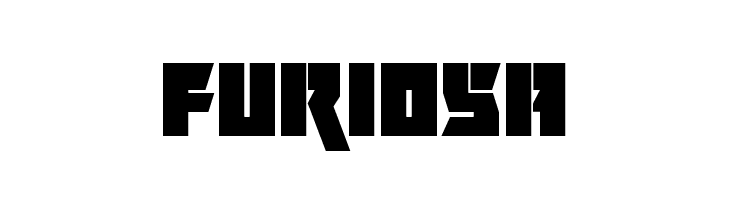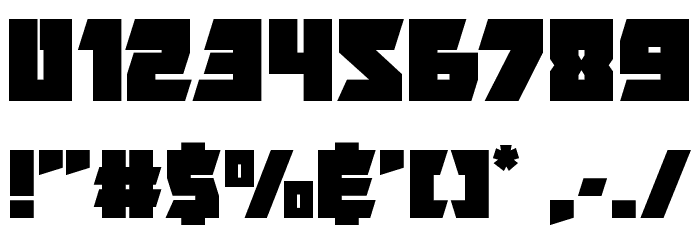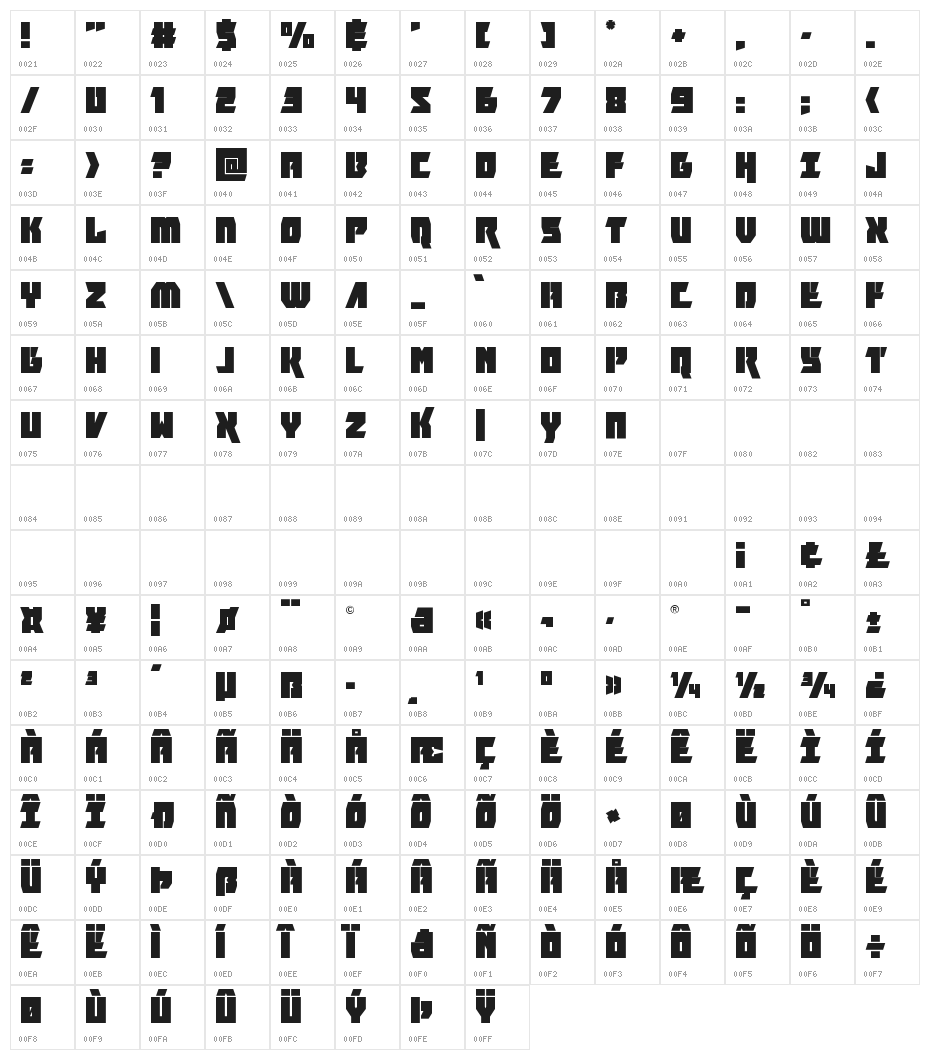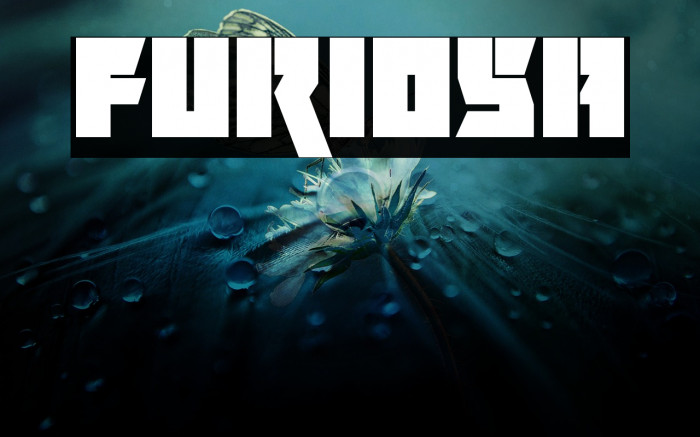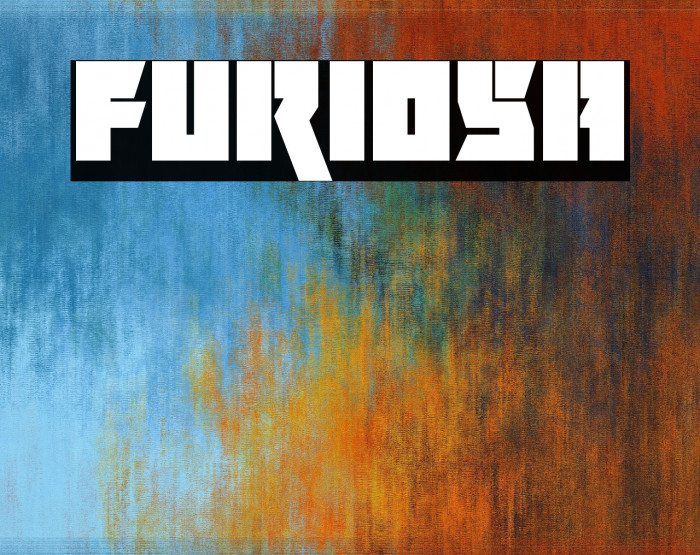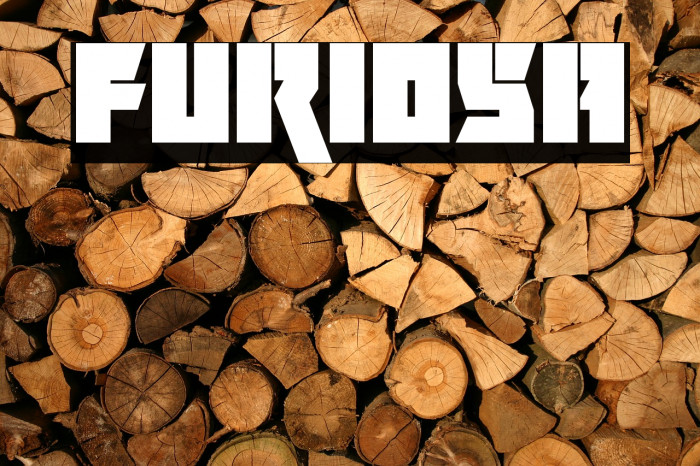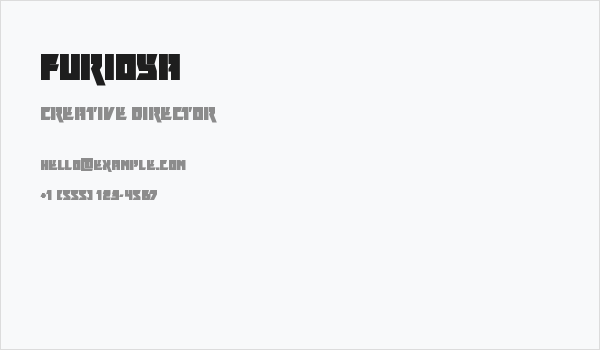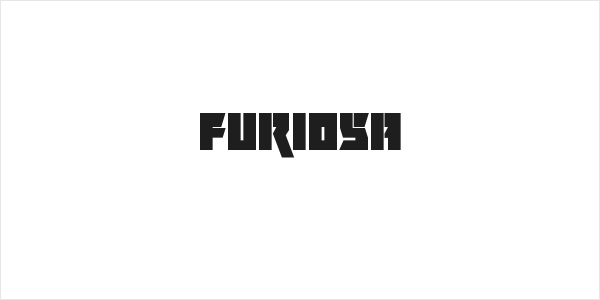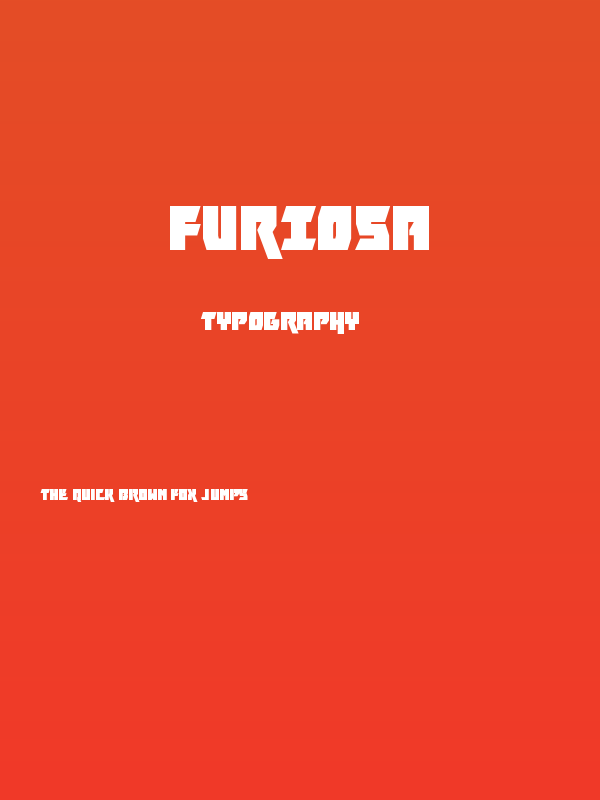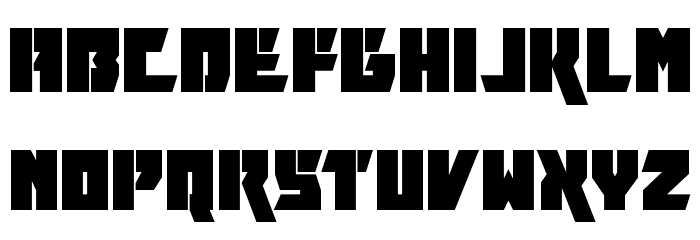
Furiosa Font
Furiosa Description
This bold and striking font features a geometric and angular design, characterized by sharp edges and a blocky appearance. The uppercase letters are particularly prominent, with a strong presence that commands attention. The lowercase letters maintain the same angular style, ensuring consistency throughout. Numbers and special characters are equally bold, making them stand out in any composition. The overall design is reminiscent of futuristic or industrial themes, making it ideal for projects that require a modern and edgy look. The font's unique style is perfect for creating impactful headlines, logos, and posters.
FURIOSA UPPERCASE
FURIOSA LOWERCASE
FURIOSA OTHER CHARS
| Overall Style | Modern, Futuristic |
| Proposed Projects | Ideal for futuristic branding, movie posters, video game titles, and edgy graphic designs. |